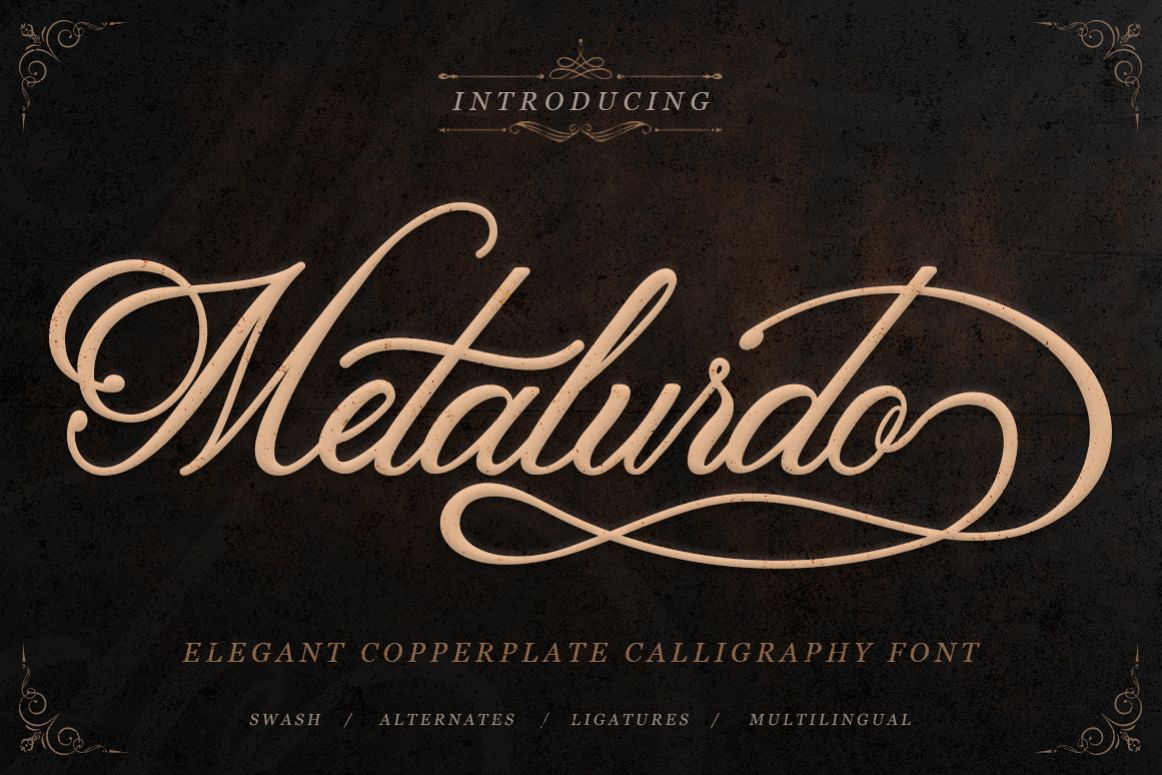
Classic Script - Metalurdo Calligraphy Font
Metalurdo font is an elegant copperplate calligraphy font with a natural & stylish flow.
Metalurdo font is perfect for many different projects such as logos & branding, invitation, stationery, wedding designs, social media posts, advertisements, product packaging, product designs, label, photography, watermark, special events or anything. What's Included :
• The ton of glyphs (include Uppercase, Lowercase, Numerals & Punctuations, Ligature, Alternate, and Swashes)